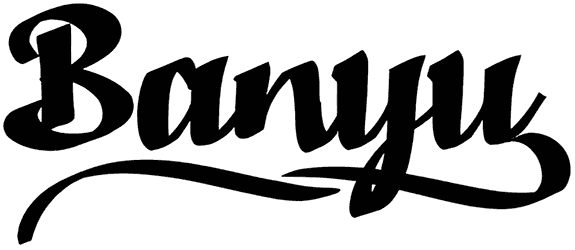
b Banyu Font
Since finding a suitable font for designing eye-grabbing brochures, movie posters, or logos would be a little bit of juggling, we have provided a lovely script font like b Banyu for you to save your time and energy.
With the help of this masterpiece, you are always one step ahead of other competitors and have the advantage of bringing a vibe of personalization, playfulness, or dynamism to any kind of graphic content.